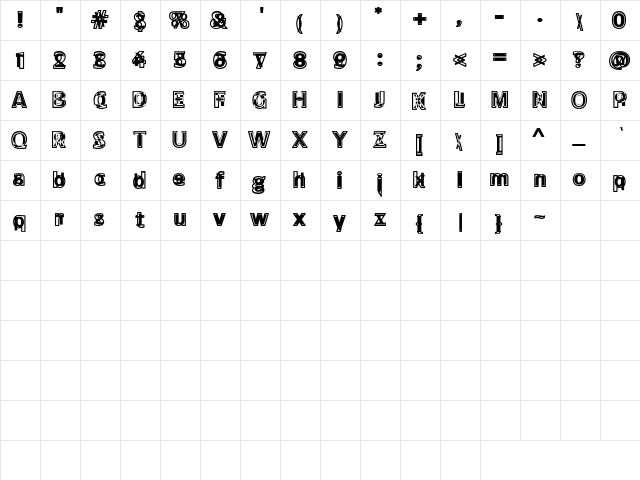
Folderol Regular
Design Context for Folderol Typeface
Folderol is a composed and adaptable typeface that performs quietly and consistently across a wide range of design contexts.